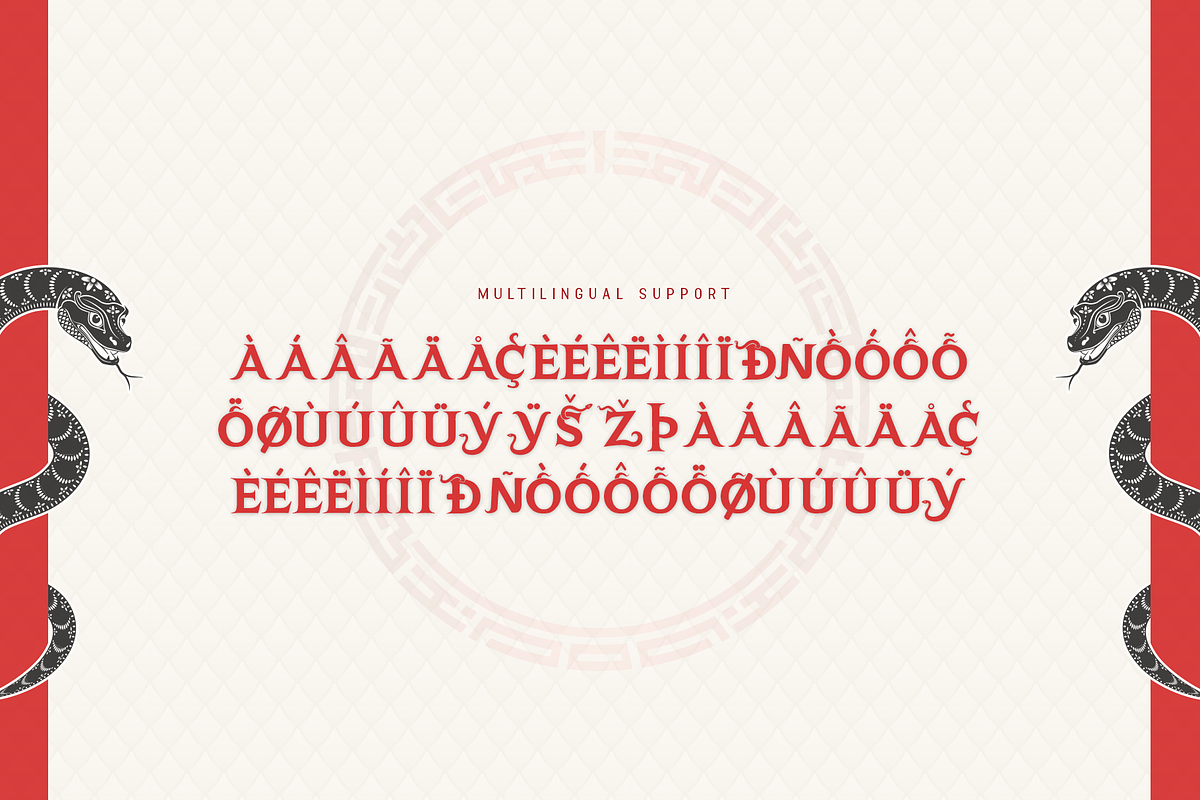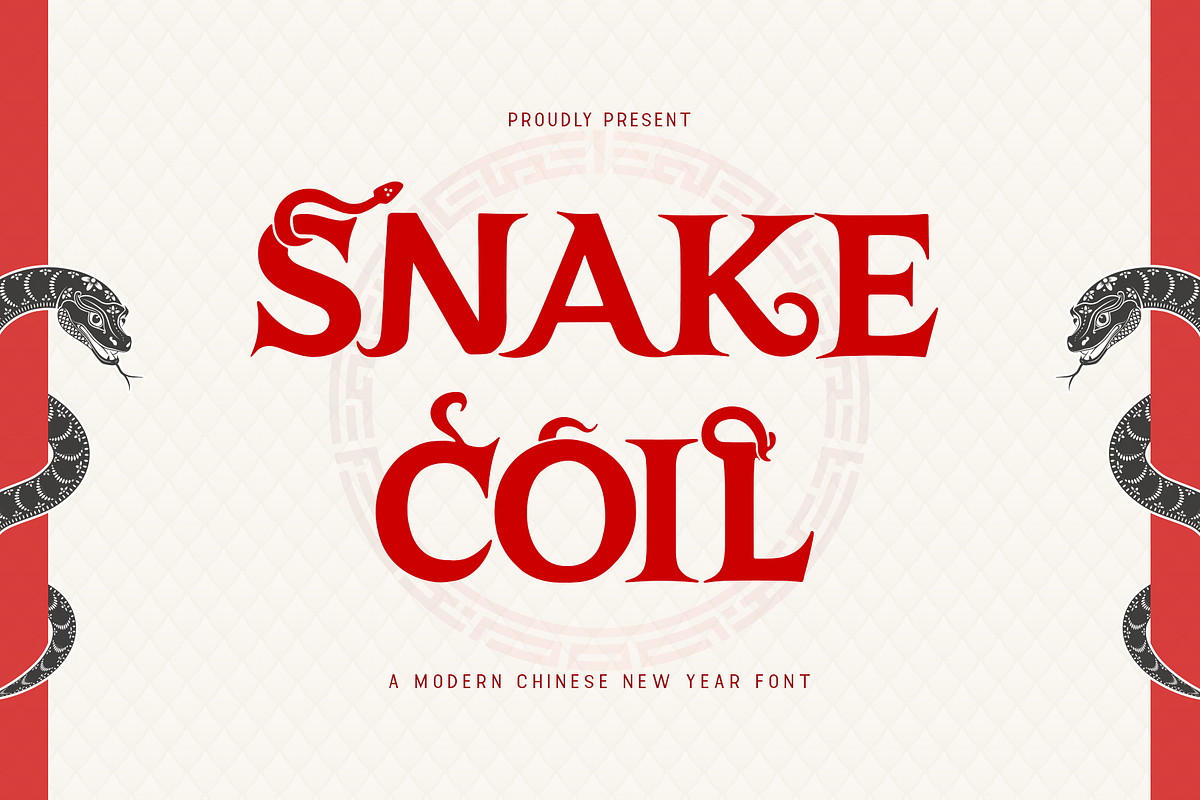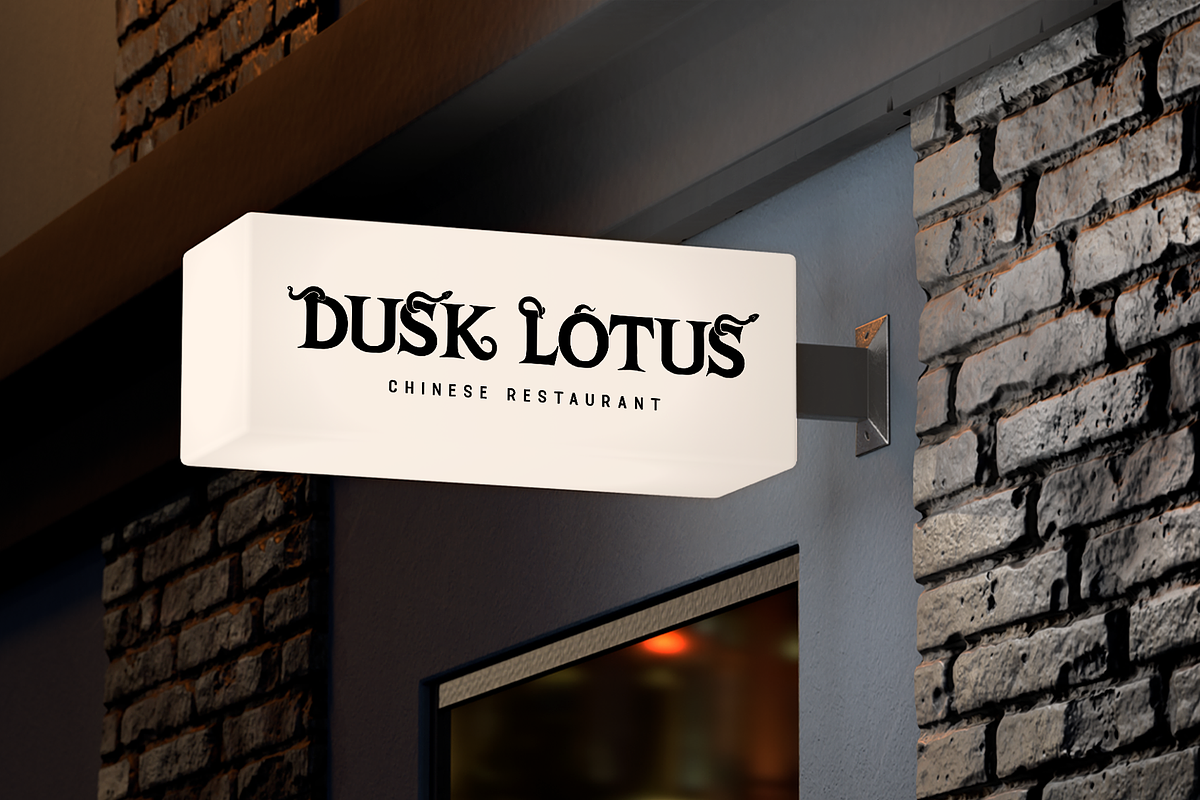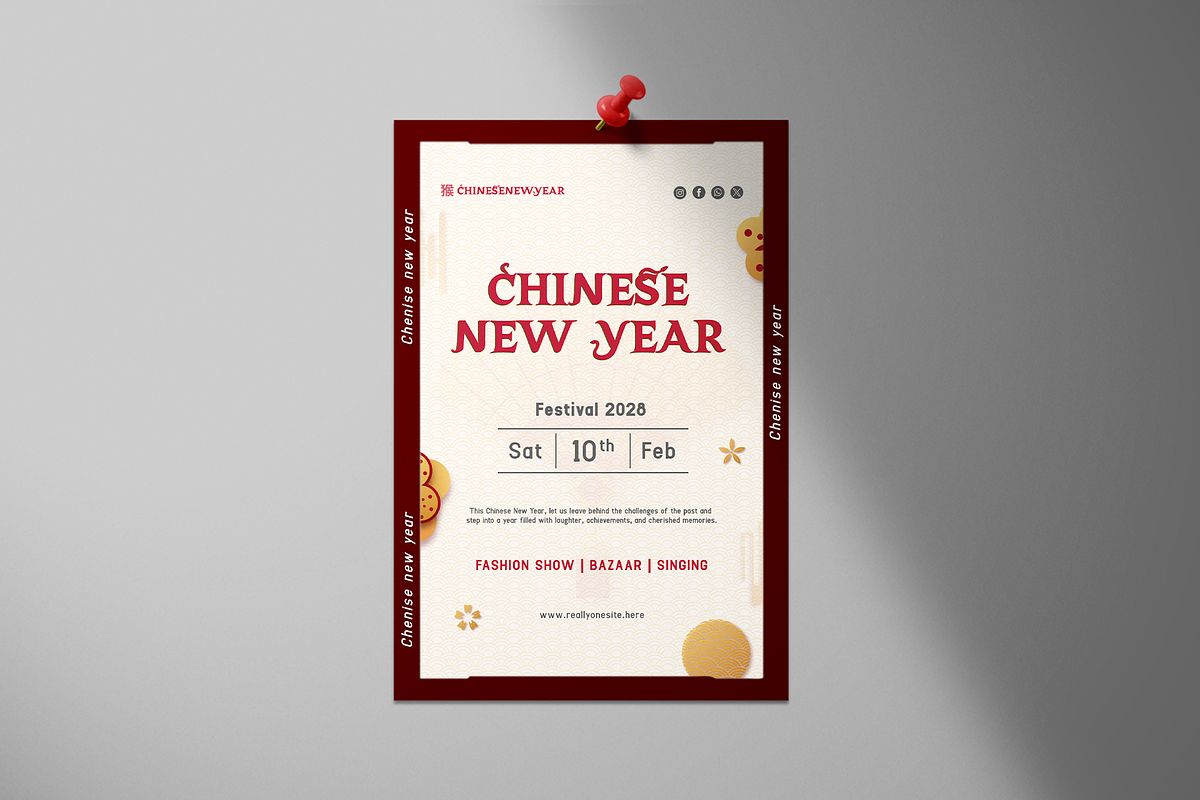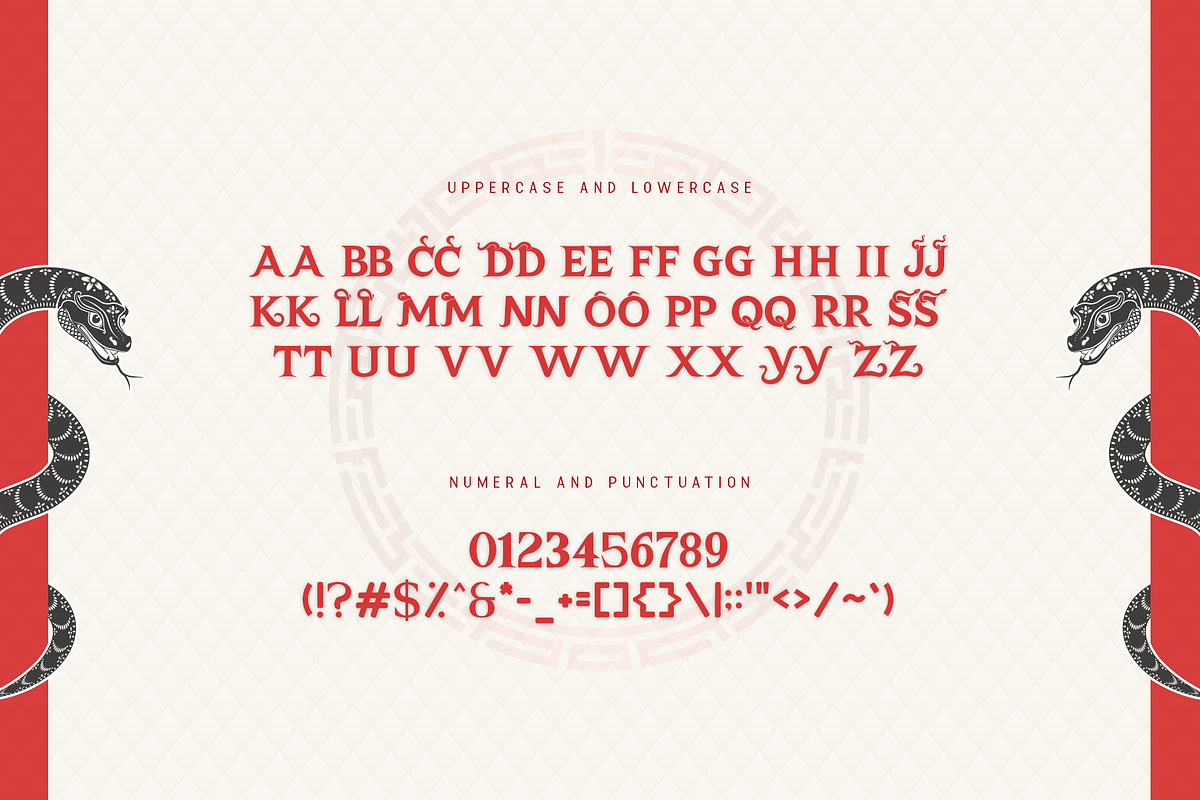
Snake Coil - Modern Chinese New Year
Snake Coil - A Modern Chinese New Year Font
Introducing Snake Coil, a modern font inspired by the elegance and symbolism of the coiling serpent. Perfect for Chinese New Year designs, this font merges traditional Chinese aesthetics with a contemporary edge, creating a bold and captivating style that commands attention.
Snake Coil features fluid curves and dynamic shapes, reminiscent of a serpent's graceful movement. This makes it an ideal choice for festive event posters, invitations, branding, and promotional materials. With its unique design, Snake Coil captures the essence of renewal, transformation, and prosperity qualities that resonate with the Lunar New Year.
Complete with uppercase and lowercase characters, numerals, punctuation, and multilingual support, Snake Coil ensures versatility for a wide range of creative projects. Whether you’re crafting an eye-catching logo or a vibrant greeting card, this font adds a touch of modern sophistication to every design.
Snake Coil is the perfect font for bringing an artistic, festive flair to your Chinese New Year creations.